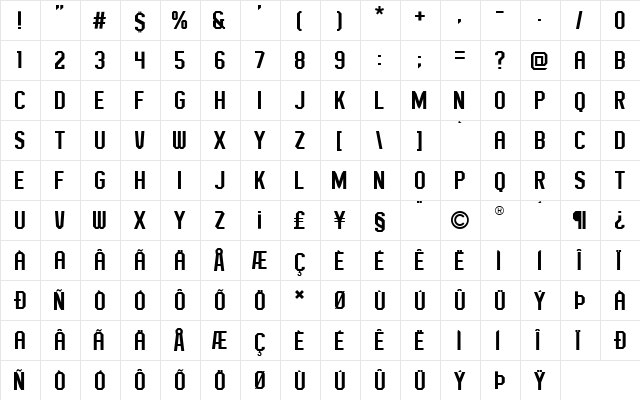
Big Star Regular
Design Context for Big Star Typeface
Big Star is a composed and adaptable typeface that performs quietly and consistently across a wide range of design contexts.